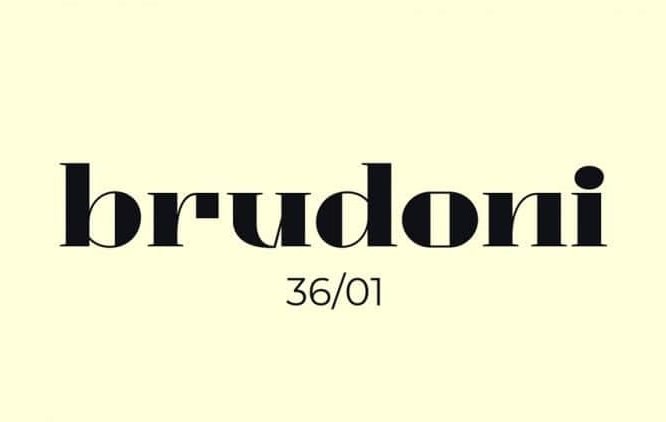
Brudoni Font
Introducing Brudoni Serif Font is a high-contrast serif typeface that is stylish, has unique characteristics and remains modern when used in design products, suitable for apparel, logotypes, promotional materials, headlines, clothing lines, and others.